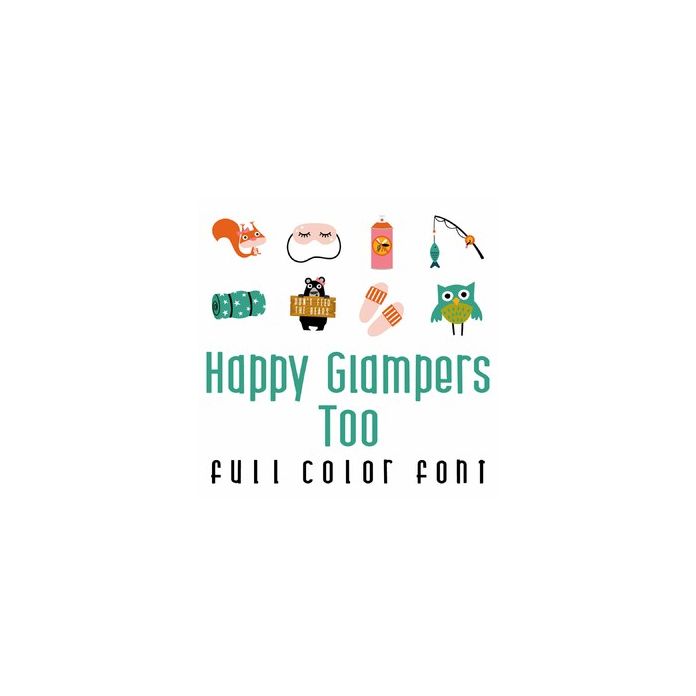
This adorable full color doodlebat font features fun camping and forest imagery perfect for glamping. This set is perfect for cards, crafts, gifts, decor, scrap book pages, planner stickers and more!